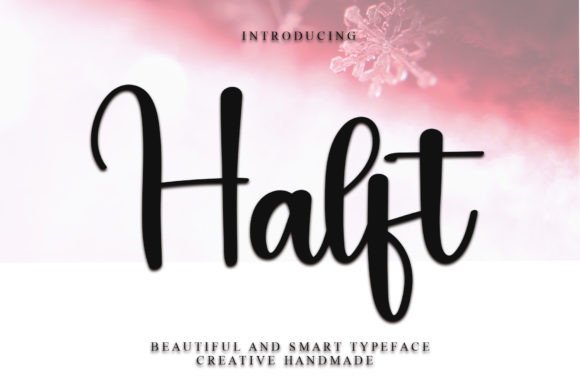
Behold, Halft Font - a breathtaking script that captures the essence of Halloween's mystery and enchantment. Inspired by the enduring elegance of classic calligraphy, Halft Font is a symphony of balanced and varied strokes that elevate your designs to new heights. Immerse yourself in the intricate details, the graceful curves, and the distinctive charm that sets this font apart.
Unleash your creativity and let Halft Font paint a picture of haunting beauty in your Halloween posters. Its contemporary flair and impeccable form make it the perfect choice for conjuring an atmosphere of both enchantment and unease. Whether you're creating invitations, flyers, or social media graphics, Halft Font will cast a spell on your audience, leaving them spellbound and eager for more.
With Halft Font, your words will dance across the page like ghostly apparitions, captivating your readers with a sense of mystery. Its timeless classic style adds an air of sophistication, while its contemporary twist ensures that your designs remain current and relevant. Let Halft Font be your muse as you craft enchanting visuals that transport your audience to a realm of magic and intrigue.
But Halft Font is not just for Halloween. Its versatility extends far beyond the realm of the supernatural. Let its elegant strokes add a touch of enchantment to your wedding invitations, grace your love letters with a hint of romance, or give your branding a unique and captivating identity. Halft Font is a font of endless possibilities, ready to transform your designs into works of art.